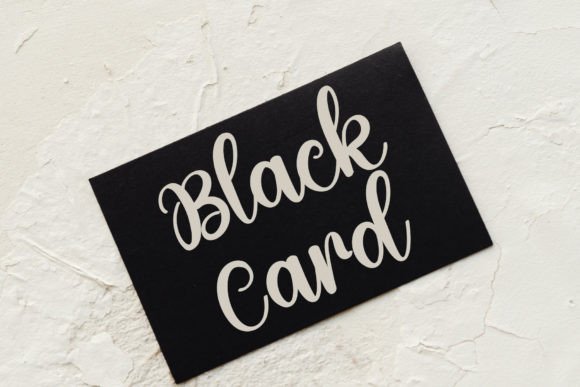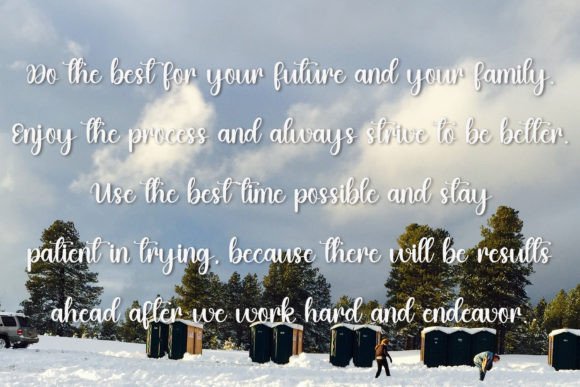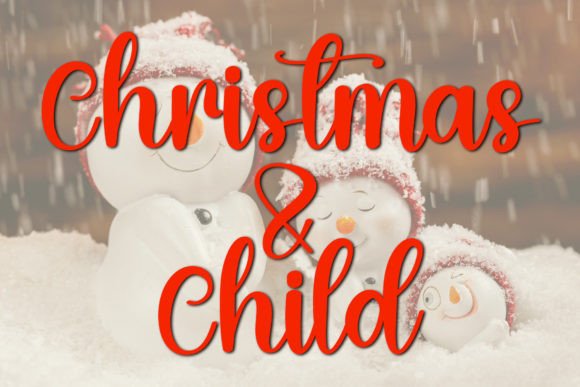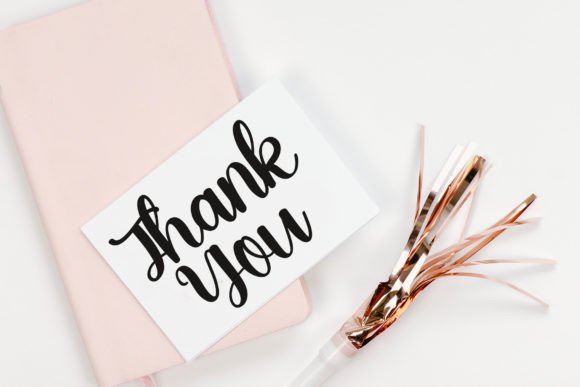
Introduction to Simpling Font
As a designer, you know the thrill of finding the perfect font to elevate your creative project. The moment when everything comes together, and your vision starts to take shape. That’s what happened when I stumbled upon the Simpling Font. Its modern, handwritten style and spotless form instantly captured my attention, and I knew I had to dive deeper.
With its perfect balance of thickness and variation, the Simpling Font is a game-changer for designers. Whether you’re working on a high-quality brochure, a creative campaign, or a design project with a transparent background, this font is sure to impress. As a valuable design resource, the Simpling Font is free to download, making it accessible to designers of all levels.
Key Features of Simpling Font
- High-Quality Design: The Simpling Font is designed with precision and care to ensure a high-quality output for any creative project.
- Large Character Set: The Simpling Font includes a large character set, including uppercase and lowercase letters, numbers, and punctuation marks.
- Unique Characteristics: The Simpling Font features a unique, modern design aesthetic that sets it apart from other fonts in its class.
Honest Review: Simpling Font
I recently stumbled upon the Simpling Font while searching for a unique design resource for a creative project. I was immediately drawn to its modern and clean aesthetic, making it perfect for a wide range of applications.
- ✨ High quality font that is crisp and clear even at small sizes
- ⚠️ Limited character set, which may not be suitable for projects that require extensive typing
Overall, I’m impressed with the Simpling Font and would definitely consider using it in future design projects. While it may have some limitations, its high quality and clean design make it a valuable resource for designers looking for a unique and modern font.
Simpling Font
Simpling Font is a high-quality design resource ideal for creative projects. Its unique style and transparent background make it perfect for adding a touch of elegance to any design.
Getting the Most Out of Simpling Font
To get the most out of Simpling Font, use it in combination with other design elements, such as images and shapes. Experiment with different font sizes and styles to create a unique and eye-catching design.
Simpling Font is ideal for use in a variety of creative projects, including:
- Business card design
- Infographic design
When to use: Use Open Sans Font for websites, apps, and digital products that require a clean and minimalistic design. It’s also suitable for print materials like brochures and business cards.
Comparison to Simpling Font: Open Sans Font has a more classic and timeless feel compared to Simpling Font’s modern and sleek look. While both fonts are highly legible, Open Sans Font is more versatile and can be used in a wider range of design contexts.
Lato Font is a high-quality, modern sans-serif font designed for use in digital products and creative projects. It’s a great design resource for designers who want a clean and transparent background for their work.
When to use: Use Lato Font for websites, apps, and digital products that require a modern and sleek design. It’s also suitable for print materials like posters and flyers.
Yes, the Simpling Font is designed to be highly legible at various resolutions, making it an ideal choice for high-quality, high-resolution designs. The font’s clear lines and simple shapes ensure that it remains crisp and clear even when scaled up or down.